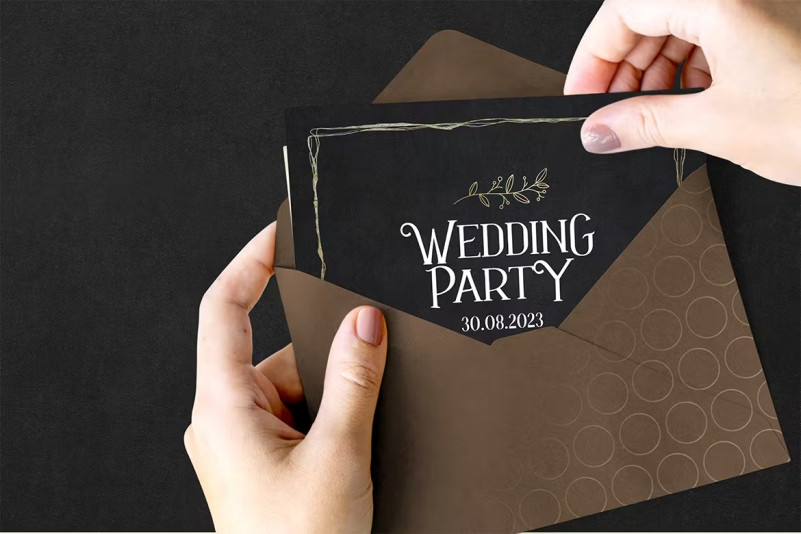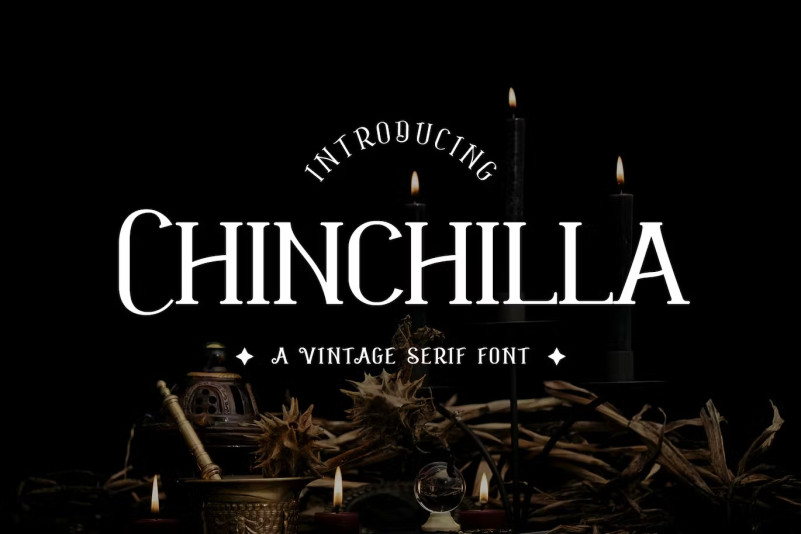
Chinchilla Typeface
Chinchilla Typeface, a beautiful, classy, ​​elegant and modern vintage serif font. This font is perfect for a wide variety of projects, such as signature, stationery, logo, wedding, typographic quotes, magazine or book covers, website headers, apparel, branding, packaging design, etc. Additionally, fashion-related branding or editorial design exhibits both masculine and feminine qualities.